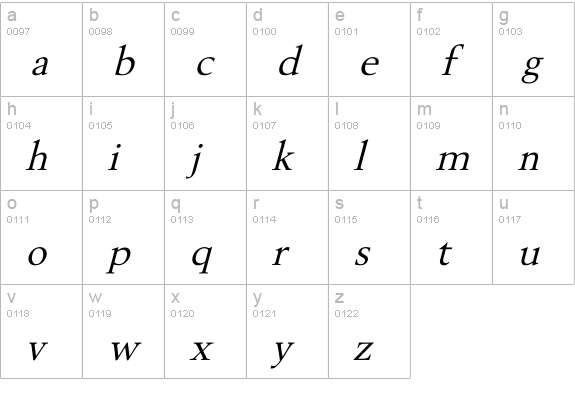
Revive OV Italic Font Details
Revive OV Italic is a distinctive, italic variant in the Revive typeface family \xE2\x80\x94 well suited to design and typography projects.
Revive OV Italic font is a stunning display typeface that exudes elegance and sophistication. With its sleek and slanted letterforms, this italic font adds a touch of modernity to any design project. Its graceful strokes and subtle curves create a harmonious balance that captivates the eye. This font is perfect for conveying a sense of luxury and refinement, making it ideal for branding, logo design, advertising, and editorial projects. Whether it's for a fashion magazine, a high-end beauty brand, or a premium product packaging, Revive OV Italic font will elevate your design to new heights. One of the best things about Revive OV Italic font is that it is available for free! Yes, you heard it right. This font can be freely downloaded at FontsMarket.com. No need to worry about spending a fortune on expensive fonts when you can get this remarkable typeface without breaking the bank. Designed with utmost attention to detail, Revive OV Italic font ensures legibility and readability even at smaller sizes. Its versatile nature allows it to be used in various design applications, from headings and titles to body text and captions. The italic style adds a touch of emphasis and emphasis to your message, making it more engaging and memorable. The modern and timeless appeal of Revive OV Italic font is sure to make your designs stand out from the crowd. So why wait? Head over to FontsMarket.com and grab this font for free. Elevate your design projects with the beauty and sophistication of Revive OV Italic font today!